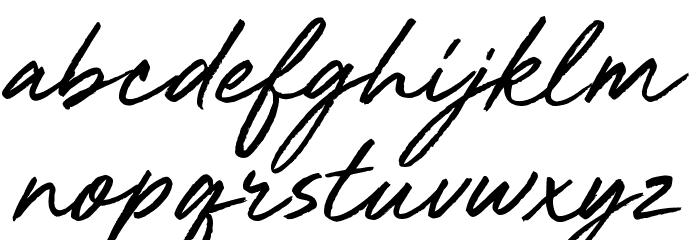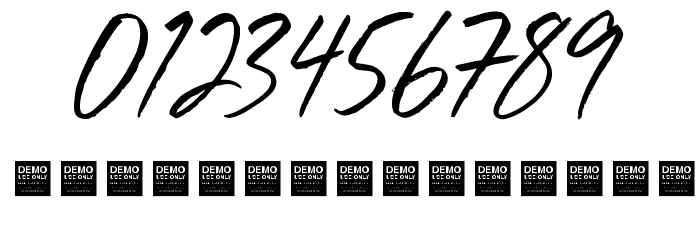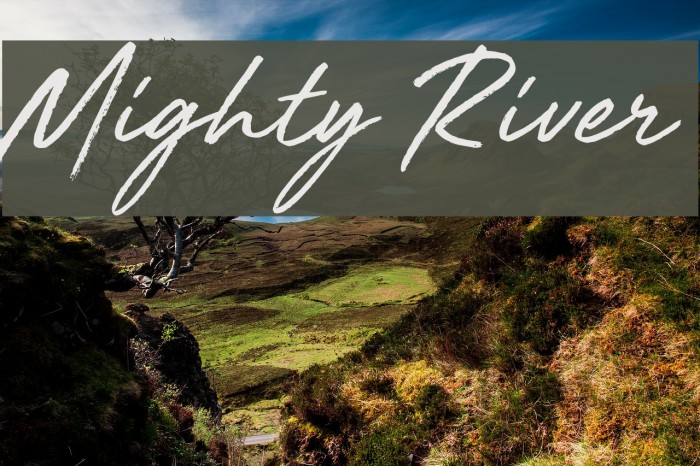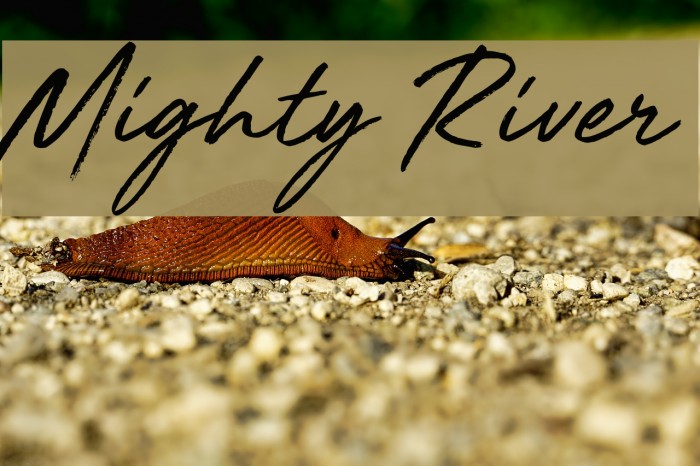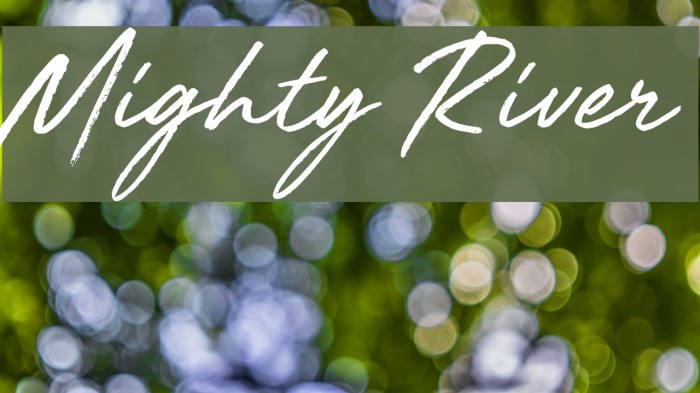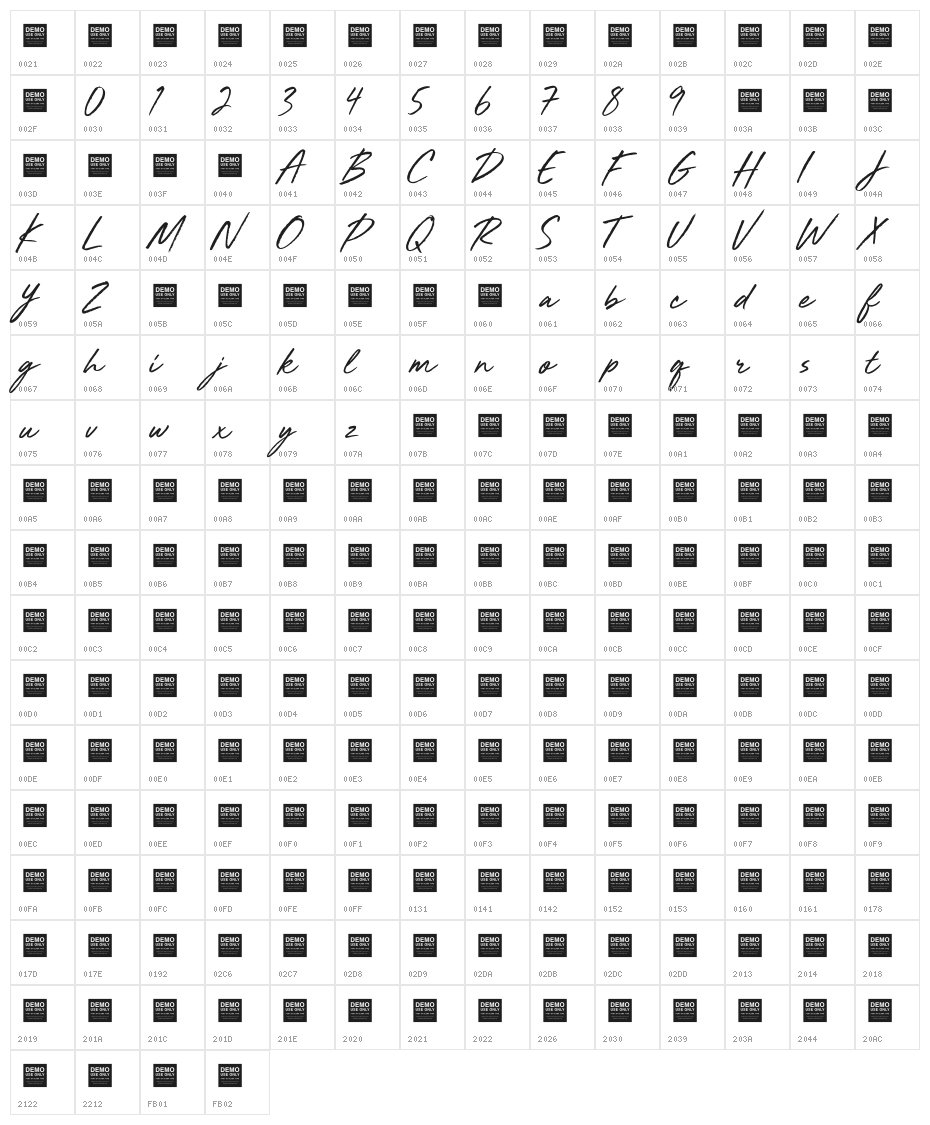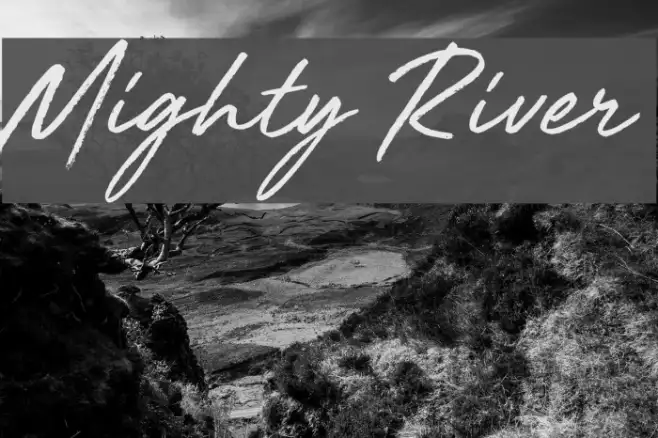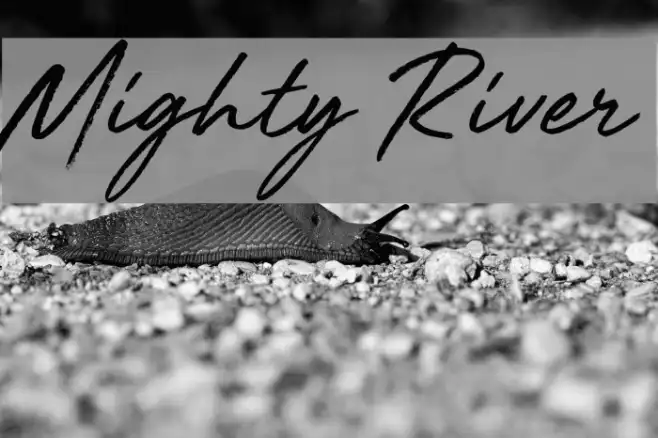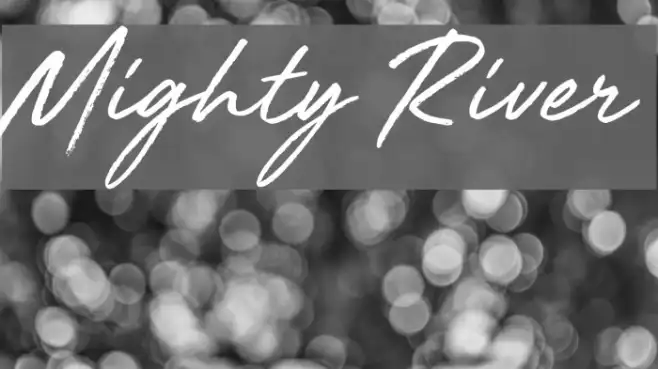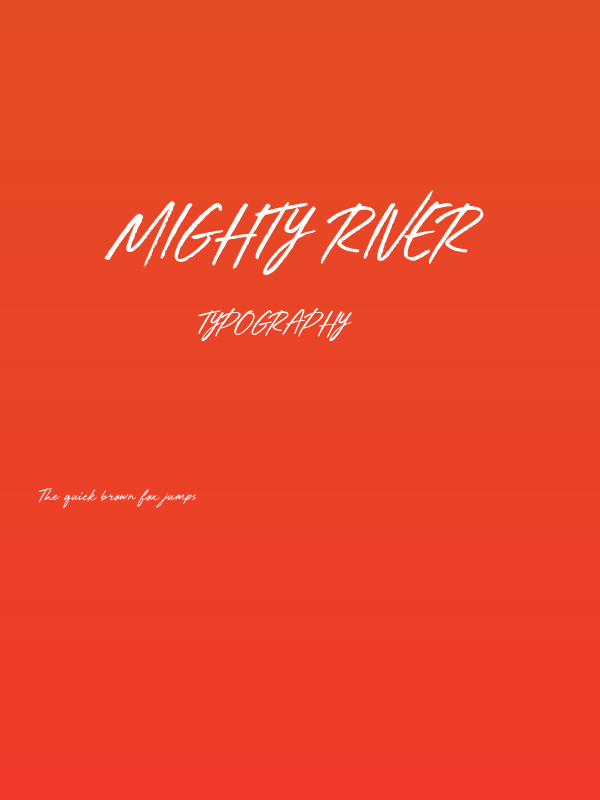
Mighty River Font
This font features a dynamic and expressive handwritten style, characterized by its fluid and cursive letterforms. The strokes are smooth and slightly irregular, giving it a natural and personal touch. The uppercase letters are bold and prominent, while the lowercase letters maintain a consistent flow, enhancing readability. The numbers are well-integrated with the overall style, maintaining the same handwritten aesthetic. This font exudes a sense of creativity and spontaneity, making it suitable for projects that require a personal or artistic touch.
A dynamic, expressive handwritten font with fluid, cursive letterforms.
- Overall Style: Artistic, Creative